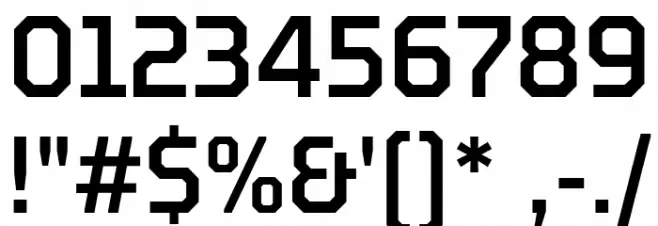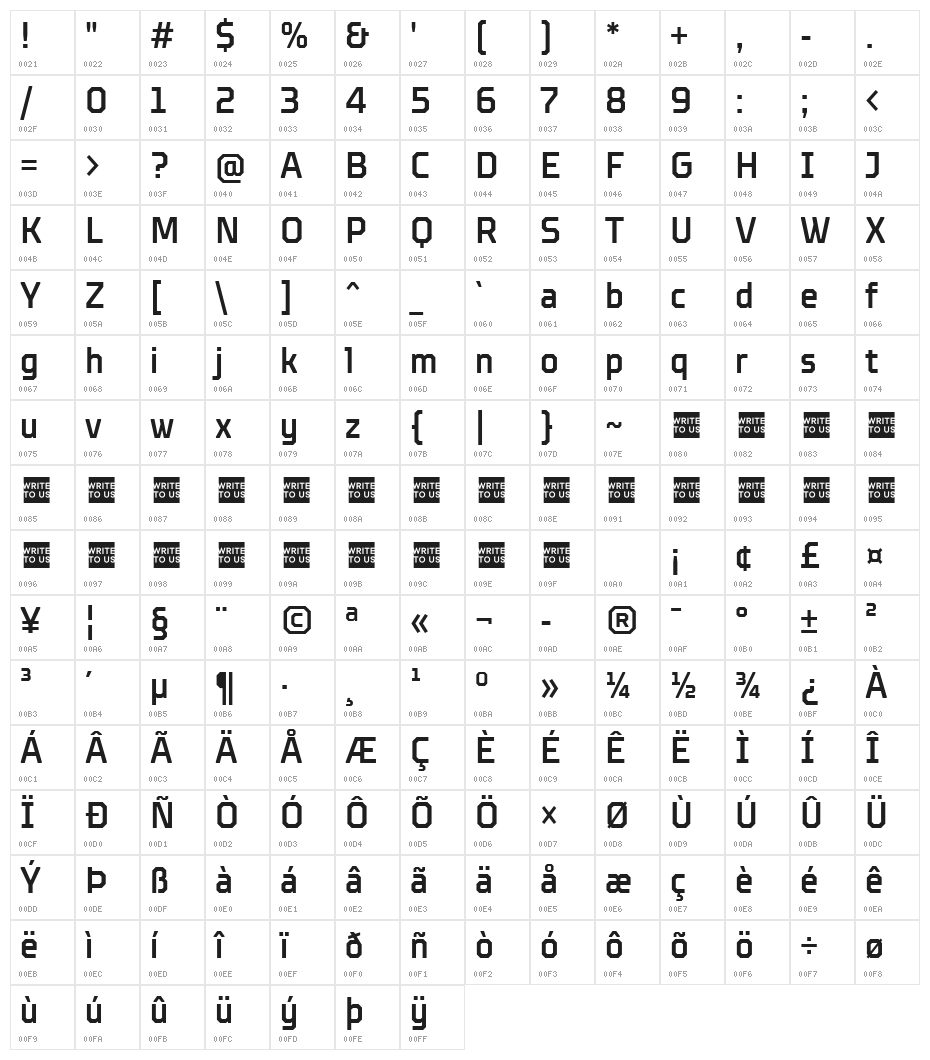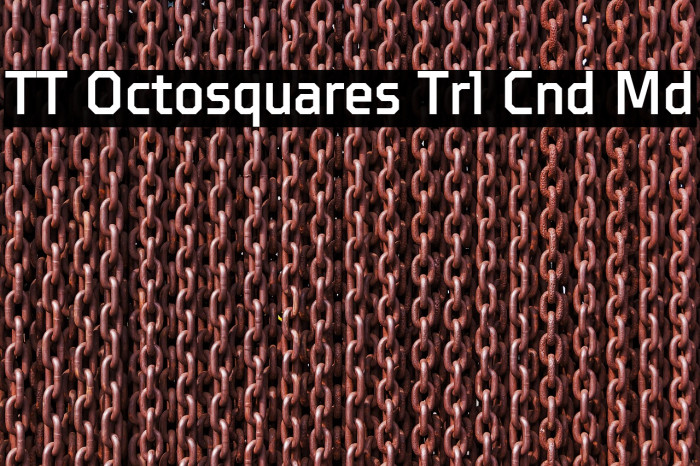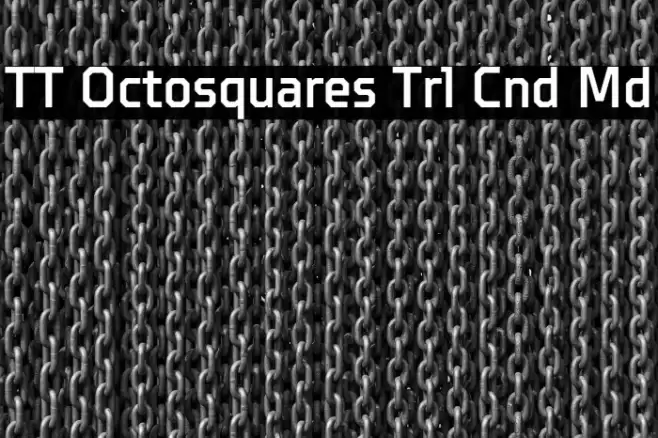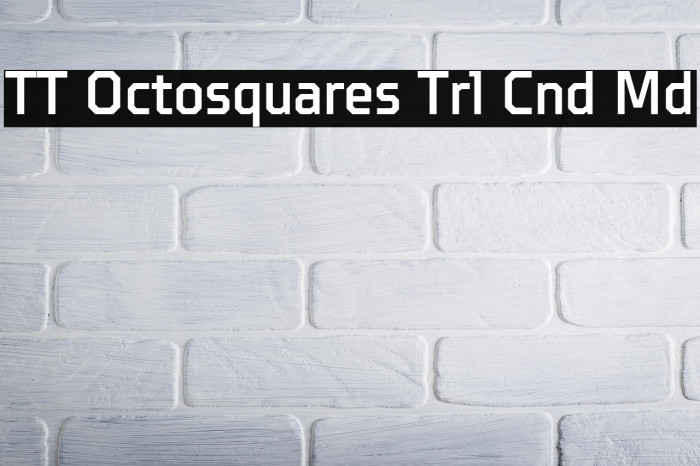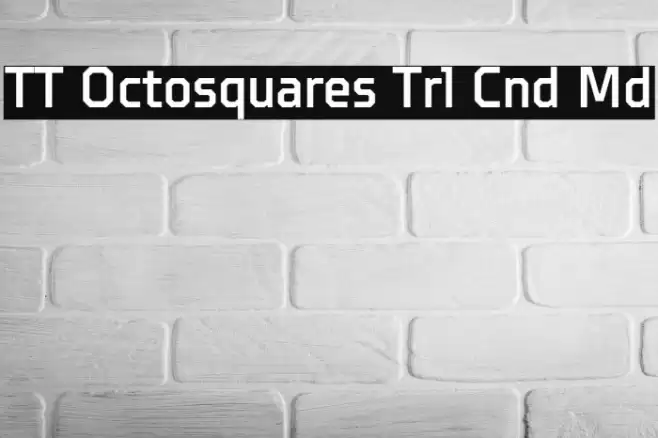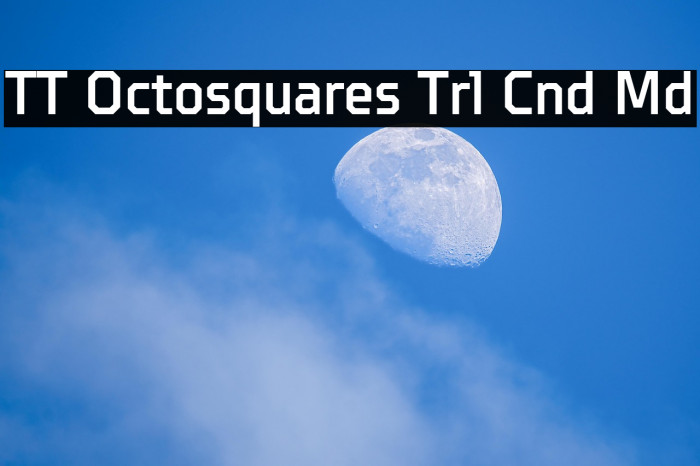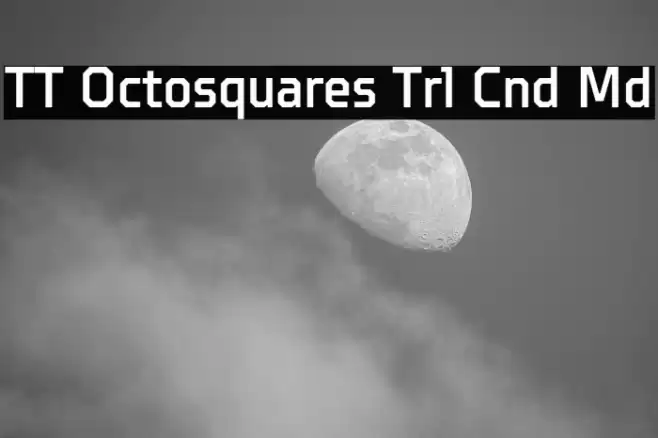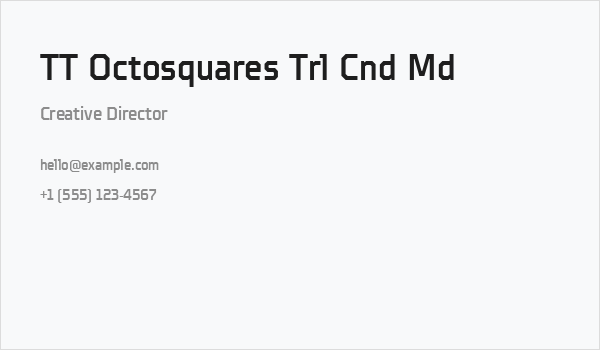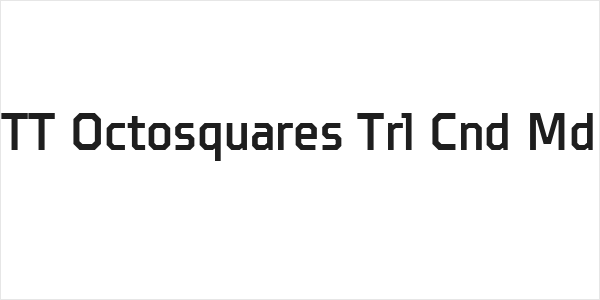
TT Octosquares Trl Cnd Md Font
TT Octosquares Trl Cnd Md Description
This font features a geometric and modern design with a distinct square-like structure. The characters are bold and condensed, giving a compact and sturdy appearance. The edges are sharp, and the overall style is clean and minimalistic, making it suitable for contemporary design projects. The uppercase and lowercase letters maintain a consistent style, and the numerals are clear and easy to read. Special characters are included, complementing the overall aesthetic with their angular forms.
| Proposed Projects | Ideal for branding, posters, and digital media where a modern and bold statement is needed. |